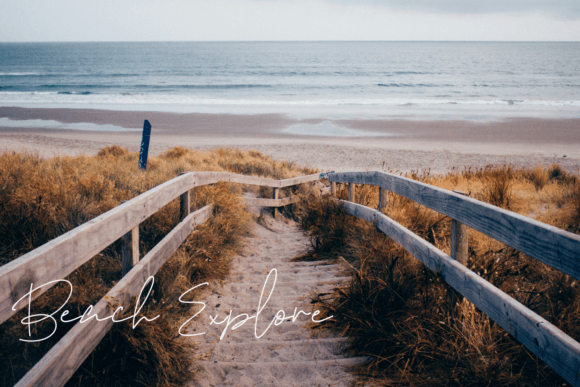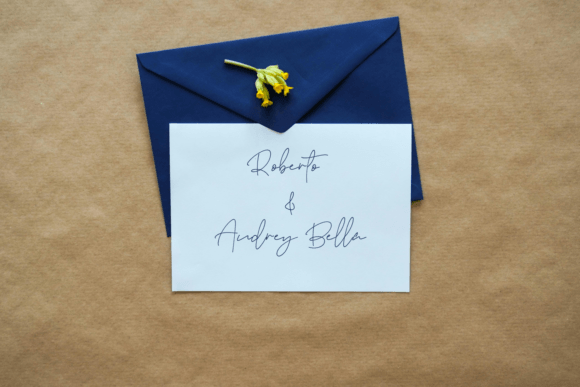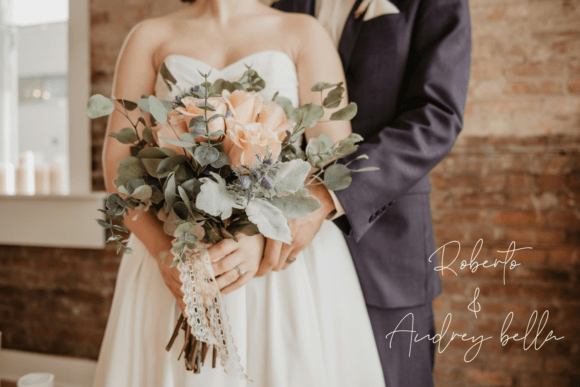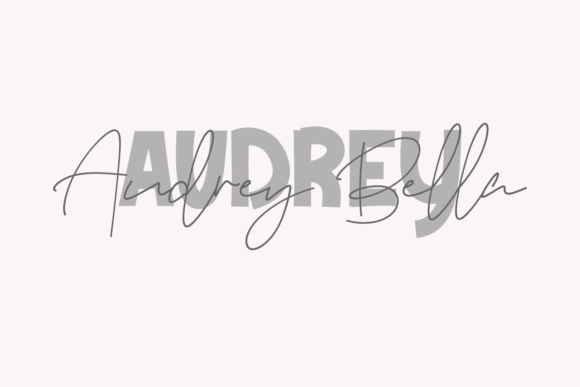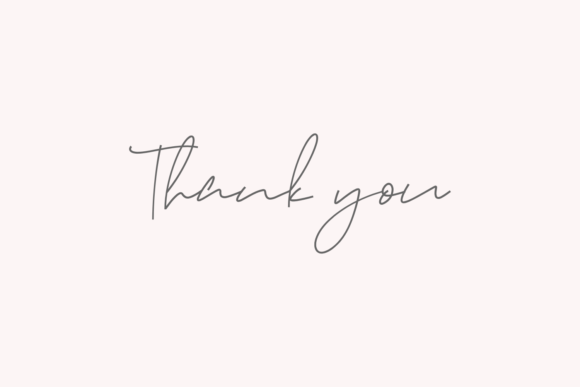
Give Your Designs a Personal Touch with the Auleyathen Font
Enter the Auleyathen Font, a stylish signature font designed to add a touch of elegance and sophistication to your designs. Whether you’re creating invitations, book covers, or photo watermarks, this beautiful font is the perfect choice. With its unique features, including ligatures and alternates, the Auleyathen Font gives you the flexibility to express yourself in a way that’s both personal and professional.
- Unique Characteristics: This font features intricate, hand-drawn designs, with unique flourishes and ornaments, making it perfect for adding a touch of elegance and sophistication to any project.
A Designer’s Review of Auleyathen Font
I recently had the chance to work with Auleyathen Font, and I must say it’s a unique addition to any design project. ✨ The font’s intricate details and elegant lines make it perfect for creating a sophisticated and luxurious atmosphere. ✨ The variety of weights and styles available also allow for a high degree of customization, making it suitable for a wide range of design applications.
One of the standout features of Auleyathen Font is its versatility. It can be used for both digital and print designs, and its high-resolution capabilities ensure that it looks great on any screen or paper. ✨ Additionally, the font’s open-source nature makes it accessible to designers of all levels and budgets.
While Auleyathen Font is a great choice for many design projects, it’s not without its limitations. ⚠️ One of the main drawbacks is its limited legibility in small text sizes. This can make it difficult to read, especially in situations where clear communication is crucial. ⚠️ Another limitation is the font’s limited language support, which may limit its use in international design projects.
Overall, I think Auleyathen Font is a solid choice for designers looking to add some sophistication and elegance to their projects. While it may not be perfect for every situation, its unique features and high-quality design make it a great addition to any design toolkit. If you’re looking for a font that’s sure to make a statement, Auleyathen Font is definitely worth considering.
Tips for Getting the Most Out of Auleyathen Font
For optimal results, pair the Auleyathen Font with a clean and minimalist design aesthetic. Avoid using the font in large blocks of text, as it can be overwhelming. Use the font to highlight key phrases or headings instead.
The Auleyathen Font is well-suited for use in creative and artistic projects, such as graphic design, branding, and typography-based art. It can also be used in educational and technical contexts to add a touch of elegance and sophistication to text-based materials.